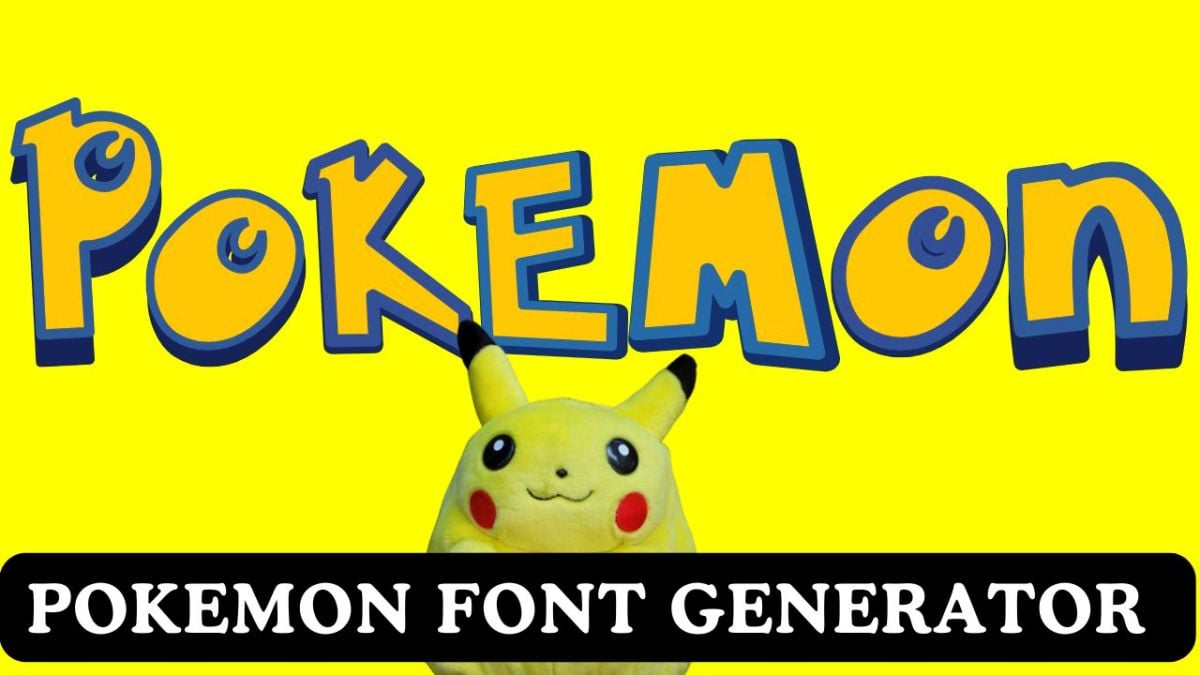
Create playful, game-inspired text in the classic Pokémon style! Use our Pokémon Font Generator to preview and design titles, banners, and graphics for parties, streams, and creative projects. Download the Pokémon font for free and bring nostalgic fun to your designs.
The Pokémon font captures the bright, friendly, and adventurous spirit of one of the world’s most beloved game franchises. With bold outlines, rounded forms, and vibrant colors, it instantly evokes the look of classic Pokémon logos and titles.
Our Pokémon Font Generator lets you preview your text in this iconic style and download the font for your own creative uses—perfect for birthday invites, stream overlays, banners, thumbnails, and fan art.
Generate text that mirrors the classic Pokémon vibe—ideal for family-friendly designs and playful branding.
Type your text and see the Pokémon look in real-time with styling that pops on any background.
Adjust size and colors easily—no design experience required.
Where to Use the Pokémon Font
- Party Invitations: Create themed birthday or event invites with a playful vibe.
- Streaming & Thumbnails: Design overlays and thumbnails for gaming content.
- Social Posts: Make fun announcements that stand out in feeds.
- School & Clubs: Enhance posters and presentations for fan clubs or events.
- Personal Crafts: Labels, stickers, and scrapbooks with a nostalgic touch.
Design Tips for Pokémon-Style Text
- Use Bold Outlines: Blue or dark outlines with yellow fills mimic the classic logo style.
- High Contrast: Pair bright yellow with deep blue or red for maximum pop.
- Rounded Shapes: Keep shapes friendly and approachable for a playful feel.
- Consistent Padding: Add spacing around letters for clean readability at large sizes.
Rounded letterforms, bold outlines, and bright colors create the instantly recognizable game aesthetic.